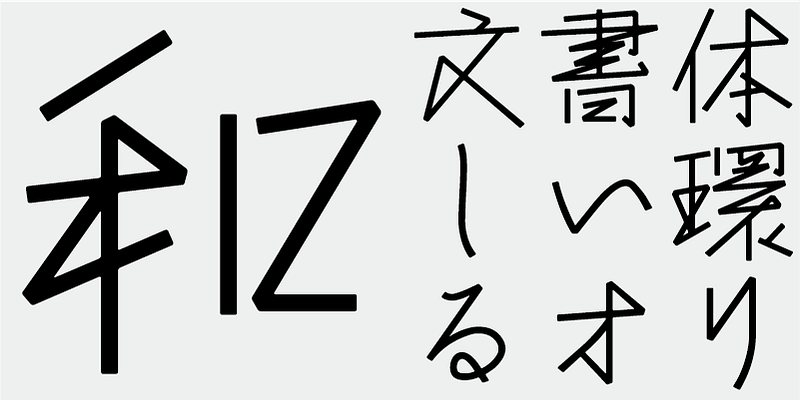
AB Seiryu Light Font Free Download is a graceful and minimalist Japanese-style typeface characterized by its thin strokes, refined structure, and elegant flow. Designed to evoke a sense of serenity and subtle sophistication, this font is ideal for high-end branding, minimalist packaging, cultural publications, and refined editorial layouts that require a delicate and polished typographic presence.
The "Light" weight of AB Seiryu offers a sense of airiness and space, making it perfect for modern design with an Eastern aesthetic influence. Its subtle brush-inspired details and balanced proportions lend authenticity and beauty without overwhelming the content. This makes it especially effective in projects where elegance and cultural nuance are key.